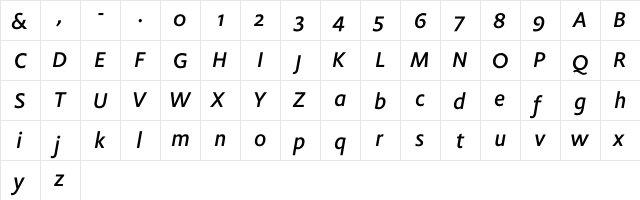
Flex Medium Italic
| Foundry | Paul van der Laan |
| Designer | Paul van der Laan |
Design Context for Flex Typeface
Flex takes a measured approach to typography — its balanced proportions and neutral character make it a reliable workhorse for both digital and print work. Its italic angle brings a sense of urgency and motion to the letterforms.
Pro Tip: Try Flex for annotation and caption copy alongside an upright companion — the contrast in angle creates a dynamic but ordered typographic system.